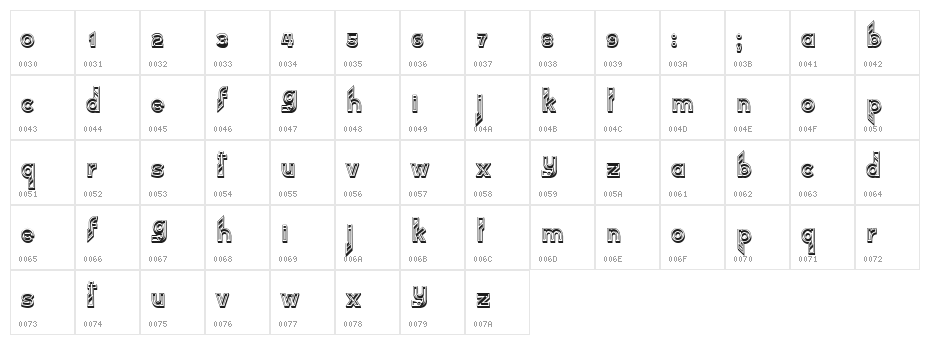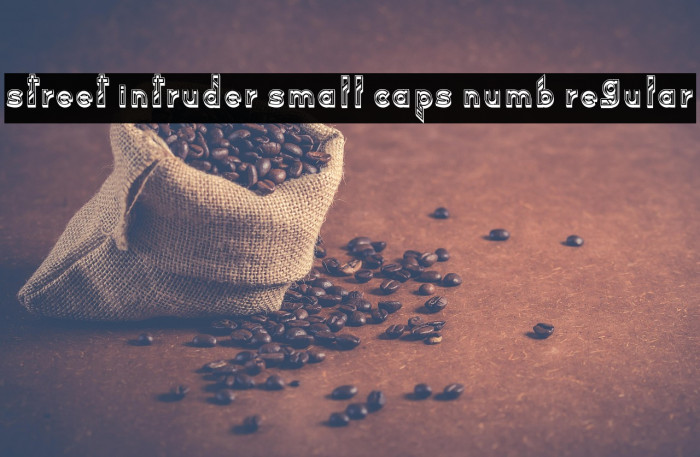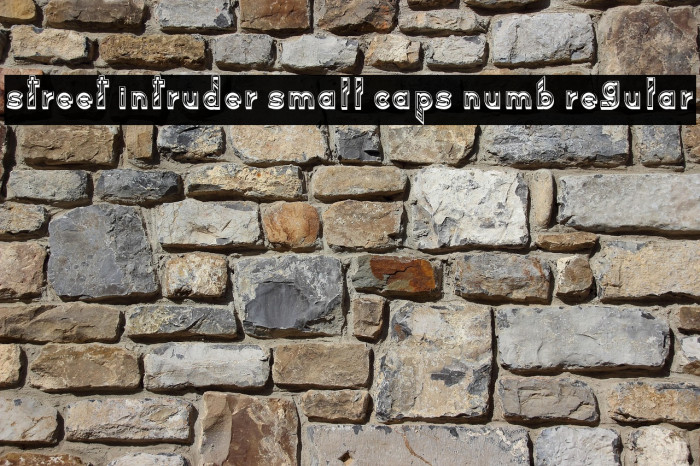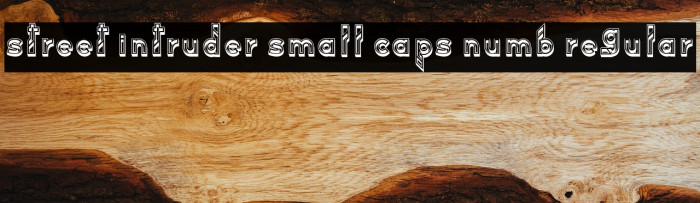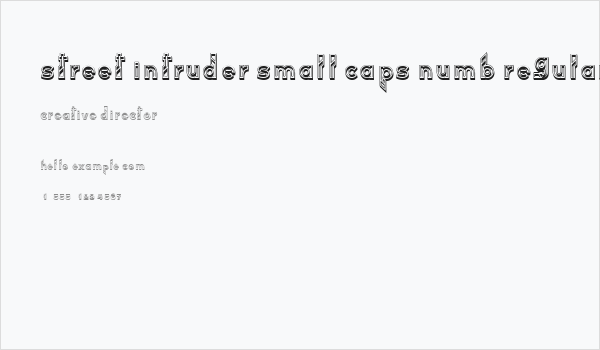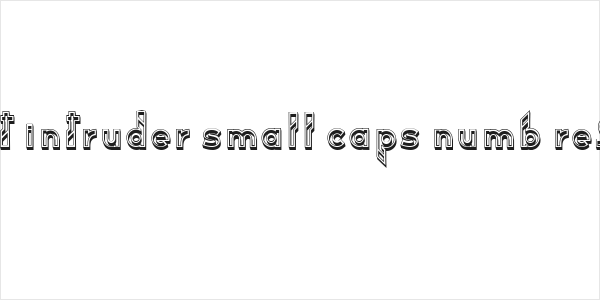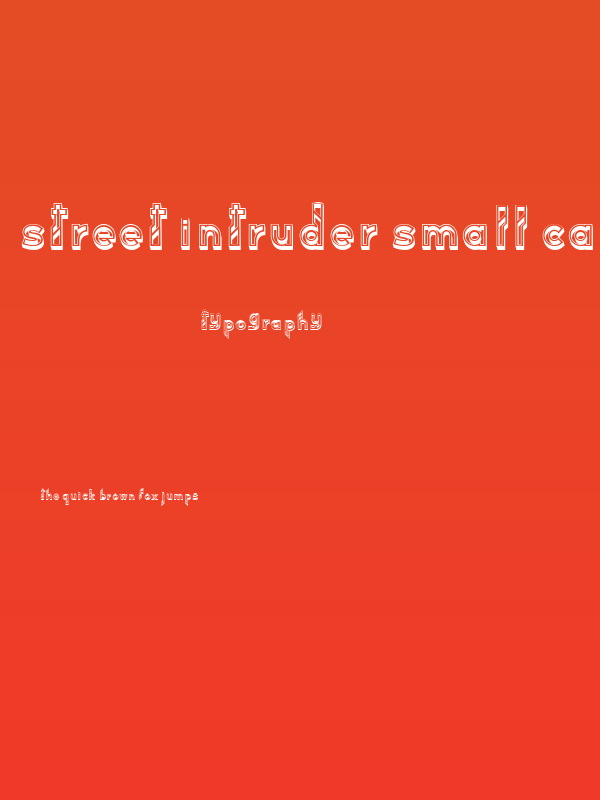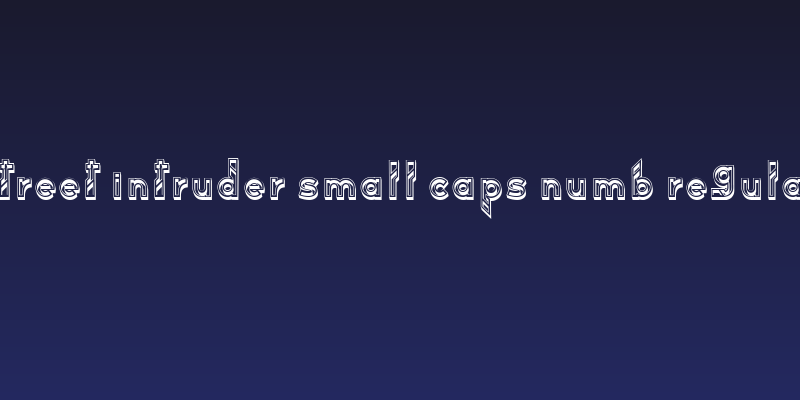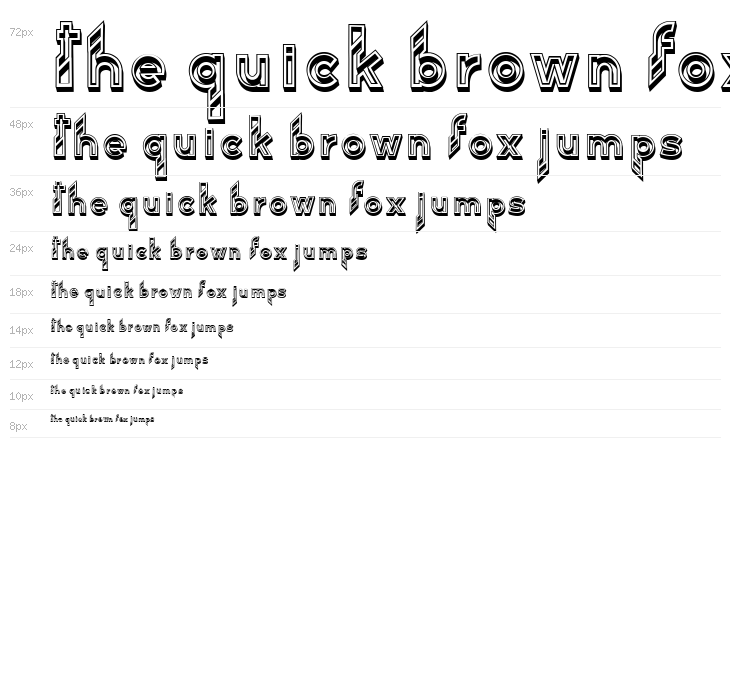
Street Intruder Small Caps Numb Regular Font
Street Intruder Small Caps Numb Regular Description
This font features a bold, decorative style with a three-dimensional effect, achieved through the use of shadowing and outlines. Each character is designed with a unique, layered look that gives the impression of depth and movement. The uppercase and lowercase letters maintain a consistent style, with angular and geometric elements that add a modern twist. The numbers and special characters are equally stylized, ensuring a cohesive appearance across all glyphs. This font's distinctiveness makes it ideal for eye-catching designs.